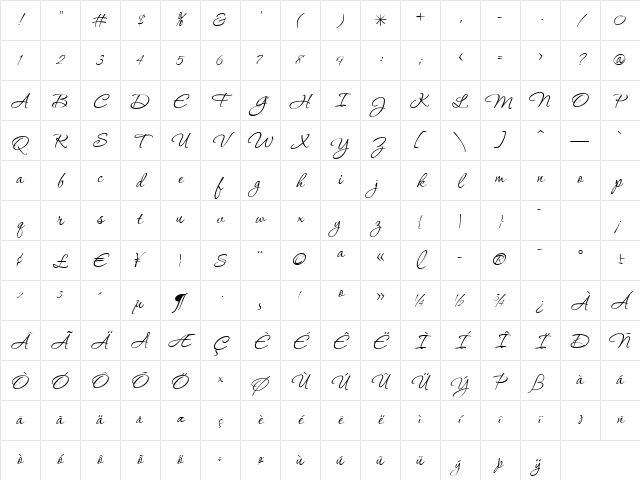
P22 Corinthia Regular
Foundry: P22 type foundry
Designer: Rob Leuschke
Design Context for P22 Corinthia
P22 Corinthia is a composed and adaptable typeface that performs quietly and consistently across a wide range of design contexts.